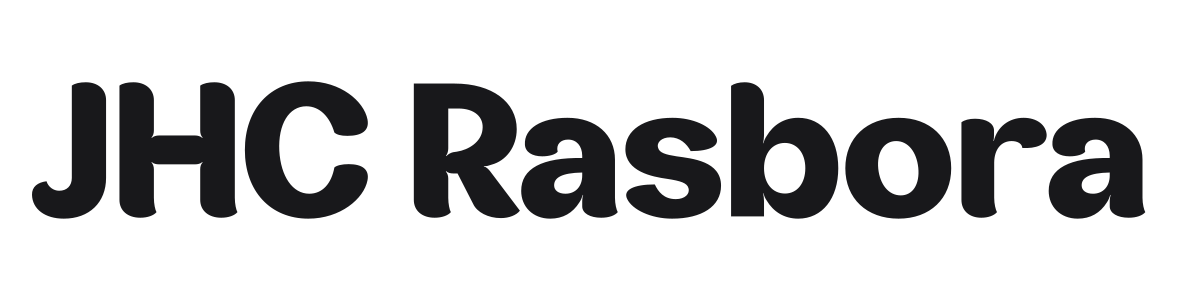
JHC Rasbora
JHC Rasbora is a bold rounded sans-serif with wide proportions, soft terminals, and a consistently warm presence. The large x-height and open counters make it immediately readable at headline and display sizes. It sits in that productive middle ground between geometric precision and humanist ease.